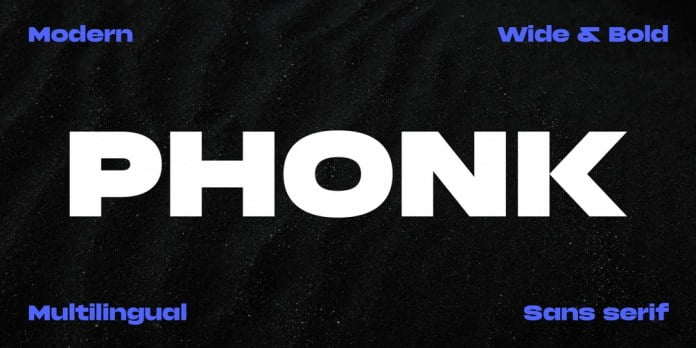
Phonk Font
Phonk Sans Serif Font is a quite bold and wide typeface. It’s great for headlines because it is a good eye-catcher. The font can also be used well for logos and other typographic experiments. Phonk has very wide language support. It has both Latin and Cyrillic.
Phonk Sans Serif Font